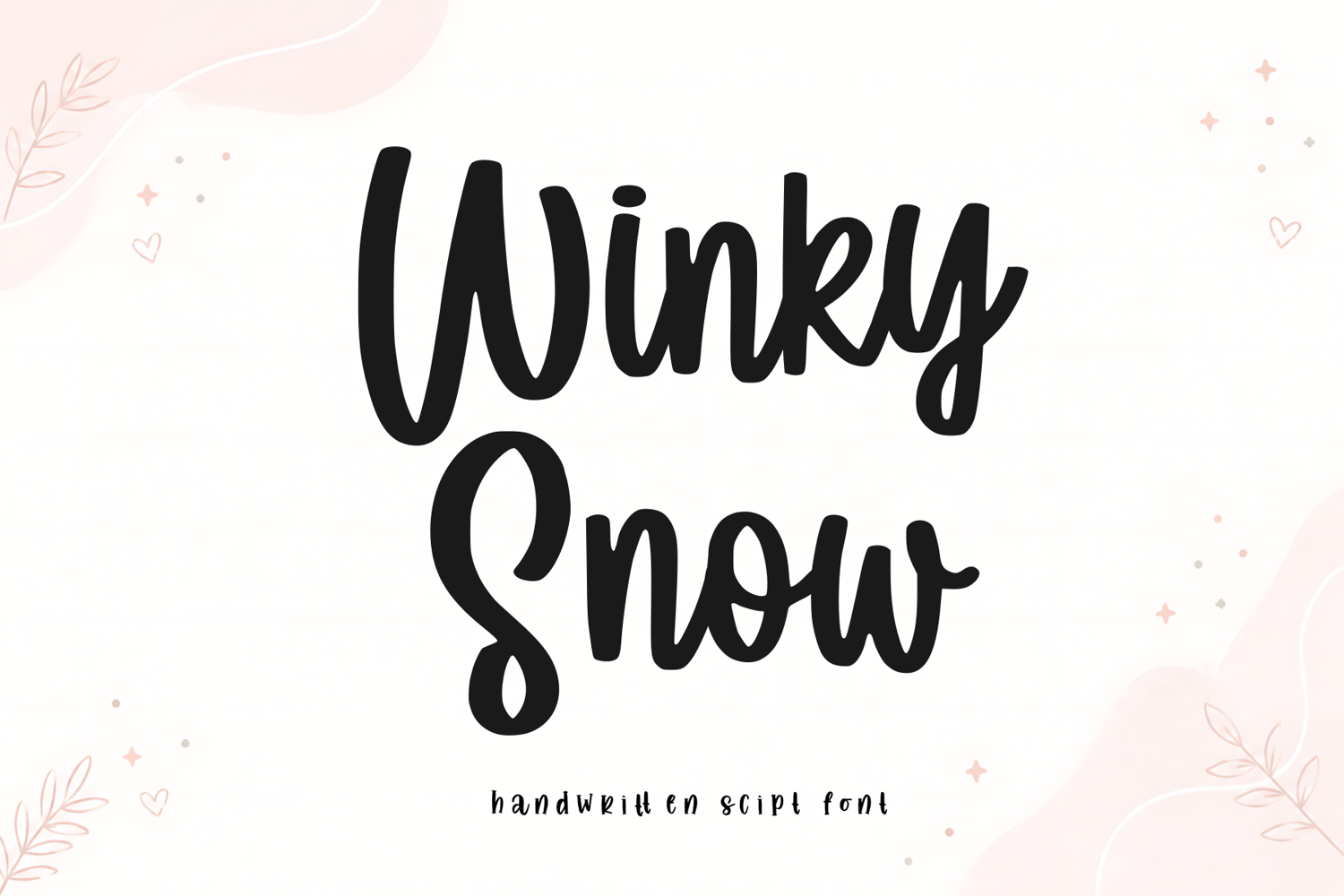
Winky Snow is a bold handwritten script font designed to bring a playful and expressive touch to your creative projects. Featuring thick, smooth strokes, rounded letterforms, and a natural hand-lettered feel, this font is perfect for designs that need a friendly and eye-catching personality.
Its bold structure makes it especially suitable for Cricut and Silhouette projects, while its expressive script style works beautifully for branding, apparel, invitations, quotes, logos, signs, and social media graphics.